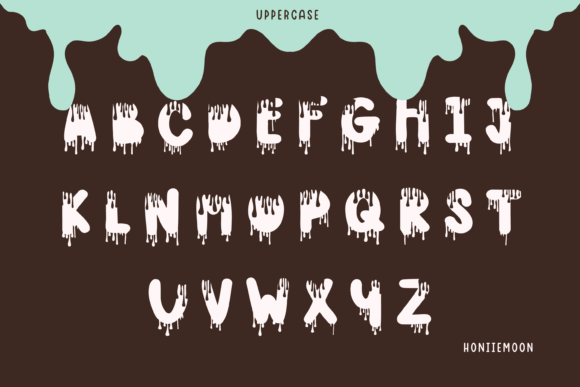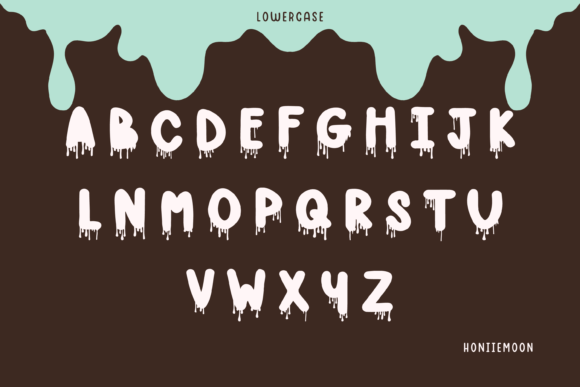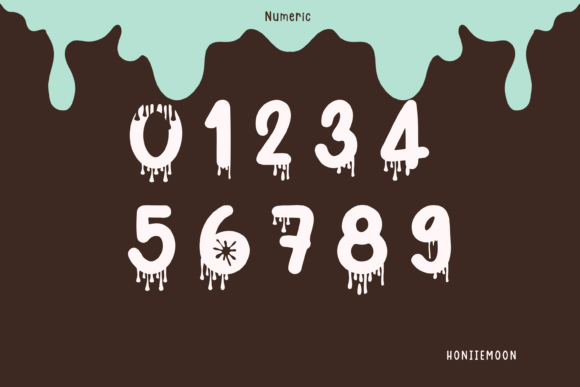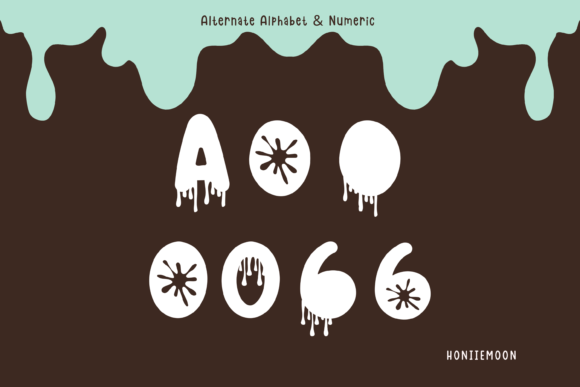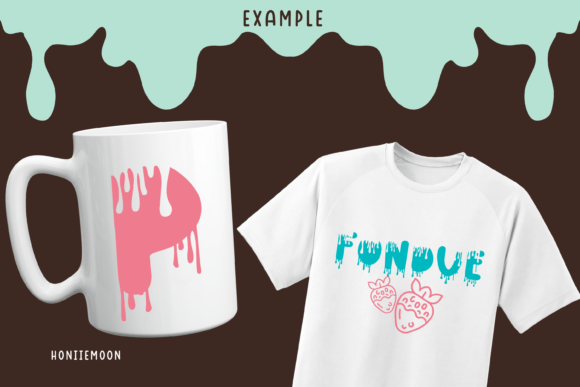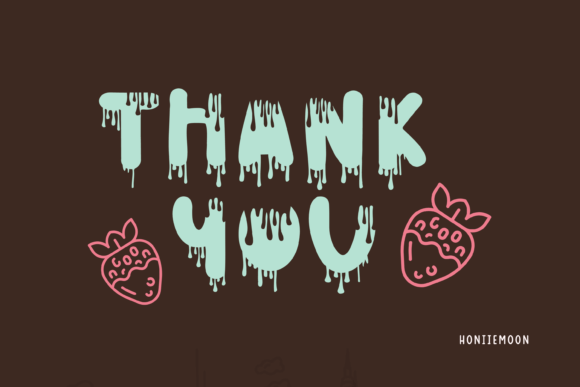
Introducing Drop Font: The Cool and Fun Display Font for Your Creative Projects
Are you tired of using the same old fonts for your designs? Look no further! Drop font is here to take your creative projects to the next level. This cool and fun display font is perfect for designers and crafters who want to add a touch of playfulness and whimsy to their work. With its cute and jolly appearance, Drop font is sure to enhance each of your designs and bring them to life.
The Versatility of Drop Font
One of the best things about Drop font is its versatility. Whether you’re working on a logo, a poster, a social media graphic, or a craft project, this font is sure to fit the bill. Its unique and eye-catching design makes it perfect for a wide range of applications, from children’s party invitations to branding materials for a fashion or lifestyle company.
The only limit to what you can create with Drop font is your imagination! With its bold and playful appearance, you can use it to create everything from fun and quirky headlines to cute and colorful captions. Whether you’re a professional designer or a DIY crafter, Drop font is sure to inspire you to try new things and push the boundaries of your creativity.
Key Features of Drop Font
So, what makes Drop font so special? Here are just a few of its key features:
- Cute and jolly appearance: Drop font has a unique and playful design that’s sure to bring a smile to your face.
- Bold and eye-catching: With its bold and chunky letters, Drop font is perfect for headlines, titles, and other applications where you want to make a statement.
- Highly versatile: Whether you’re working on a digital project or a print project, Drop font is sure to look great.
- Easy to read: Despite its bold and playful appearance, Drop font is still easy to read, making it perfect for use in a wide range of applications.
How to Use Drop Font in Your Designs
So, how can you use Drop font in your designs? Here are a few ideas to get you started:
- Pair it with other fonts: Drop font looks great when paired with other fonts, such as sans-serif fonts or script fonts. Experiment with different combinations to find the one that works best for your project.
- Use it for headlines and titles: Drop font is perfect for headlines and titles, where you want to make a bold and eye-catching statement.
- Add it to your social media graphics: Whether you’re creating a Facebook post or an Instagram story, Drop font is sure to add a touch of fun and whimsy to your social media graphics.
- Use it for craft projects: Drop font is also perfect for craft projects, such as making cards, gift tags, or other DIY crafts.
Tips and Tricks for Getting the Most Out of Drop Font
Here are a few tips and tricks for getting the most out of Drop font:
- Experiment with different colors: Drop font looks great in a wide range of colors, so don’t be afraid to experiment and find the one that works best for your project.
- Use it in combination with other design elements: Drop font looks great when used in combination with other design elements, such as images, shapes, or textures.
- Don’t be afraid to get creative: The only limit to what you can create with Drop font is your imagination, so don’t be afraid to try new things and push the boundaries of your creativity.
In conclusion, Drop font is a cool and fun display font that’s perfect for designers and crafters who want to add a touch of playfulness and whimsy to their work. With its cute and jolly appearance, bold and eye-catching design, and highly versatile nature, Drop font is sure to enhance each of your designs and bring them to life. So why not give it a try and see what amazing creations you can come up with?